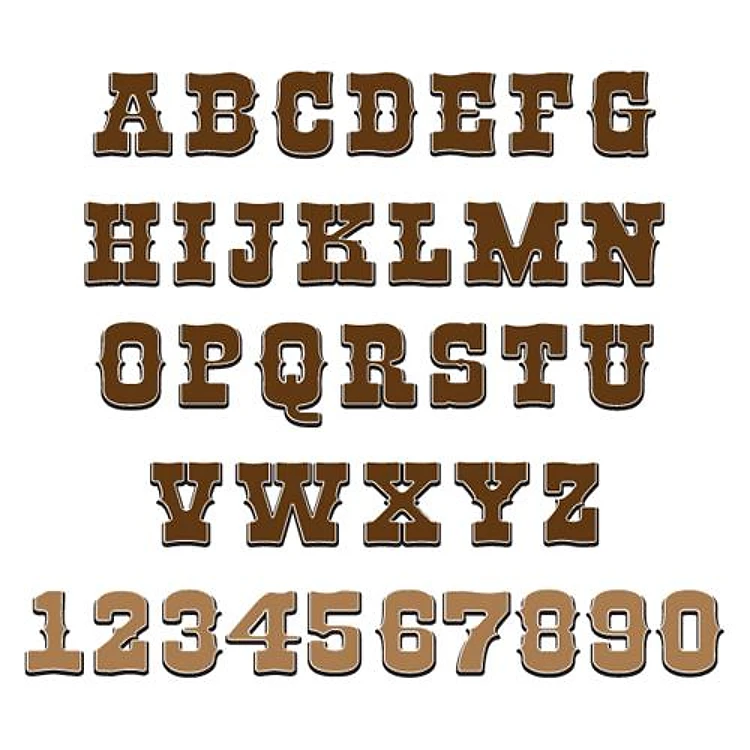
Concord Collections is happy to present Saloon Font machine embroidery font which has Rustic decorative machine embroidery font with bold, block letters that appear slightly distressed, perfect for adding a vintage flair to denim jackets or home décor projects. Available in PES, DST & 11 other formats. included. If you would like to view more embroidery fonts and alphabets please search our embroidery fonts page.
4 heights: 1.75″, 2″, 2.25″, 2.5″.